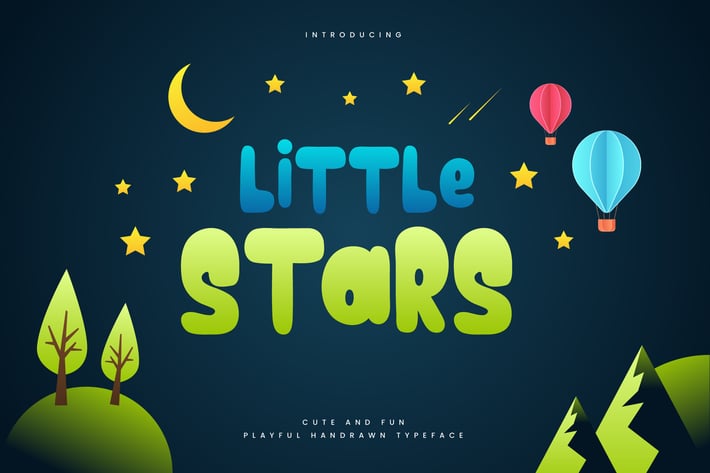
Little Stars - Fun Children Typeface
naulicrea
Are you looking for a bold and fun font for children? We can help! Try to download our epicalips font. The font is suitable to use for casual purpose especially children related occasion :)